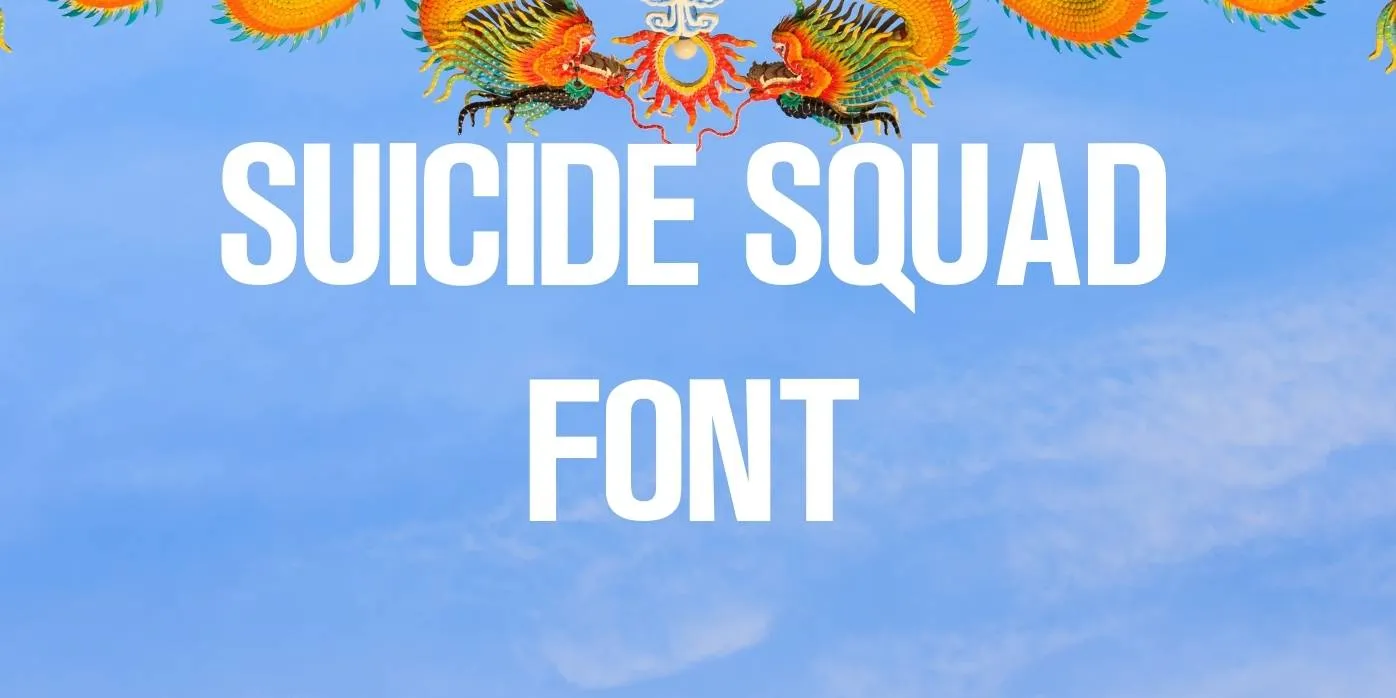
Suicide Squad Font
We are going to present a very attractive and charming typeface that was famous in the deigning industry with the name suicide squad font. This glorious font family was designed by a very famous and well-known designer name Franco Fernandez. This cute font family belongs to the Display typeface. In the year 1986, this attractive font was released for the first time to the general public.
This tremendous font is available in a lot of amazing styles. This astonishing font comes in 200 special characters. Some common and special characteristics of this typeface are icons, numerals, and so on. You can utilize its copy and paste function in your textual projects.
Jersey Font is one of the most similar to this cute font family. This glorious typeface has different keen features and also supports almost all international languages. This is the reason for its popularity in the whole of the World. When you put this typeface in your projects then all of your visitors will get the best response to you.